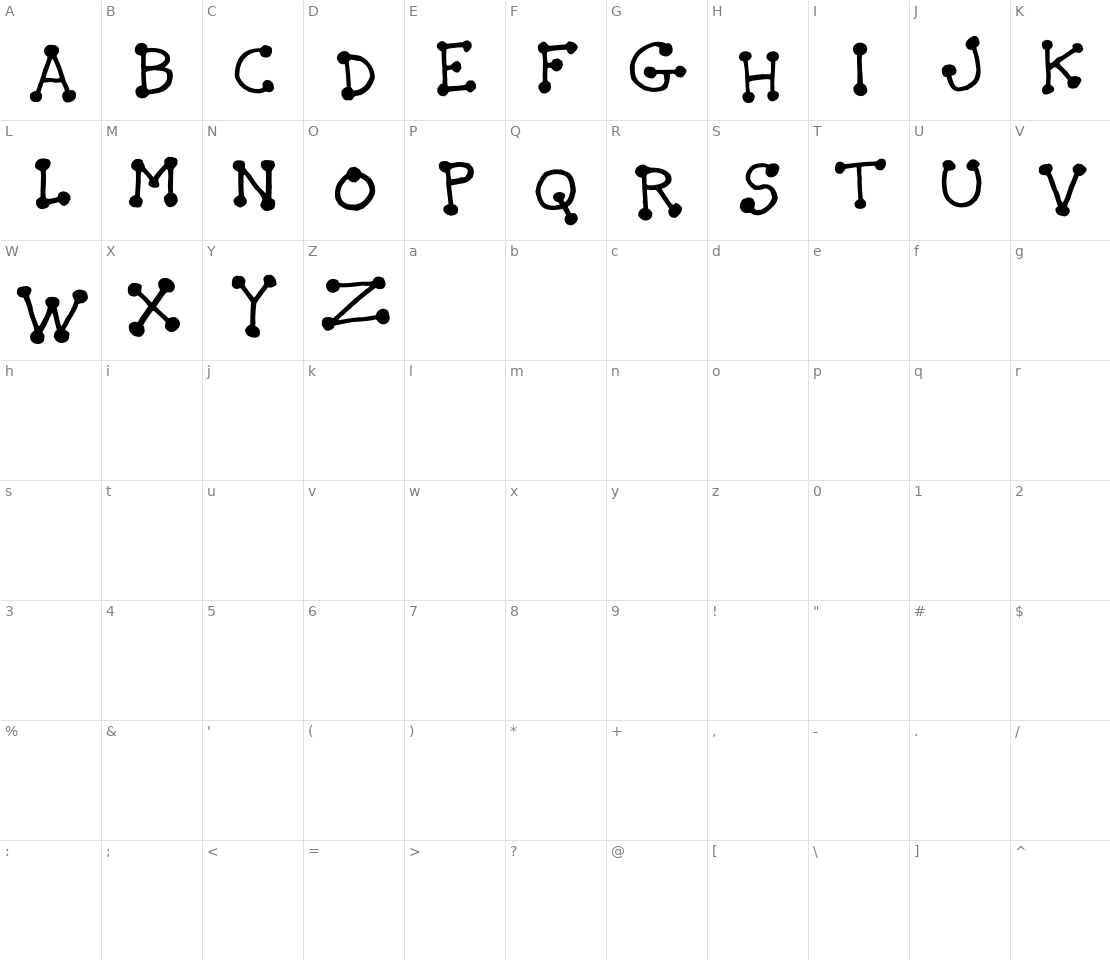
The Idiot
The Idiot is a quirky uppercase display face from imagex where letterforms are built from connected dots, giving everything a wobbly, almost molecular look. The result is playful and whimsical without being chaotic, with enough structure to stay readable at headline sizes. It works naturally for posters, children's content, and branding that wants to feel lighthearted and a little eccentric.